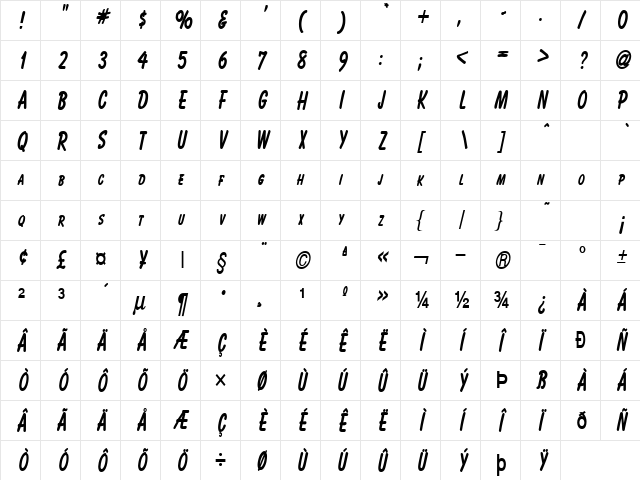
Bassett Thin Bold
Design Context for Bassett Thin Typeface
Bassett Thin is a composed and adaptable typeface that performs quietly and consistently across a wide range of design contexts. Its bold stroke weight gives it real presence on the page.